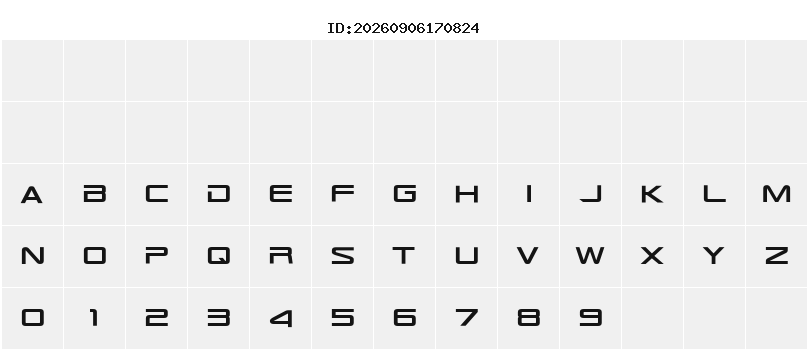
TR-909 Preview
About TR-909.ttf
TR-909.ttf is a modern, elegant sans-serif font designed for ultimate readability and visual harmony. Perfect for branding, headlines, web design, and print materials.